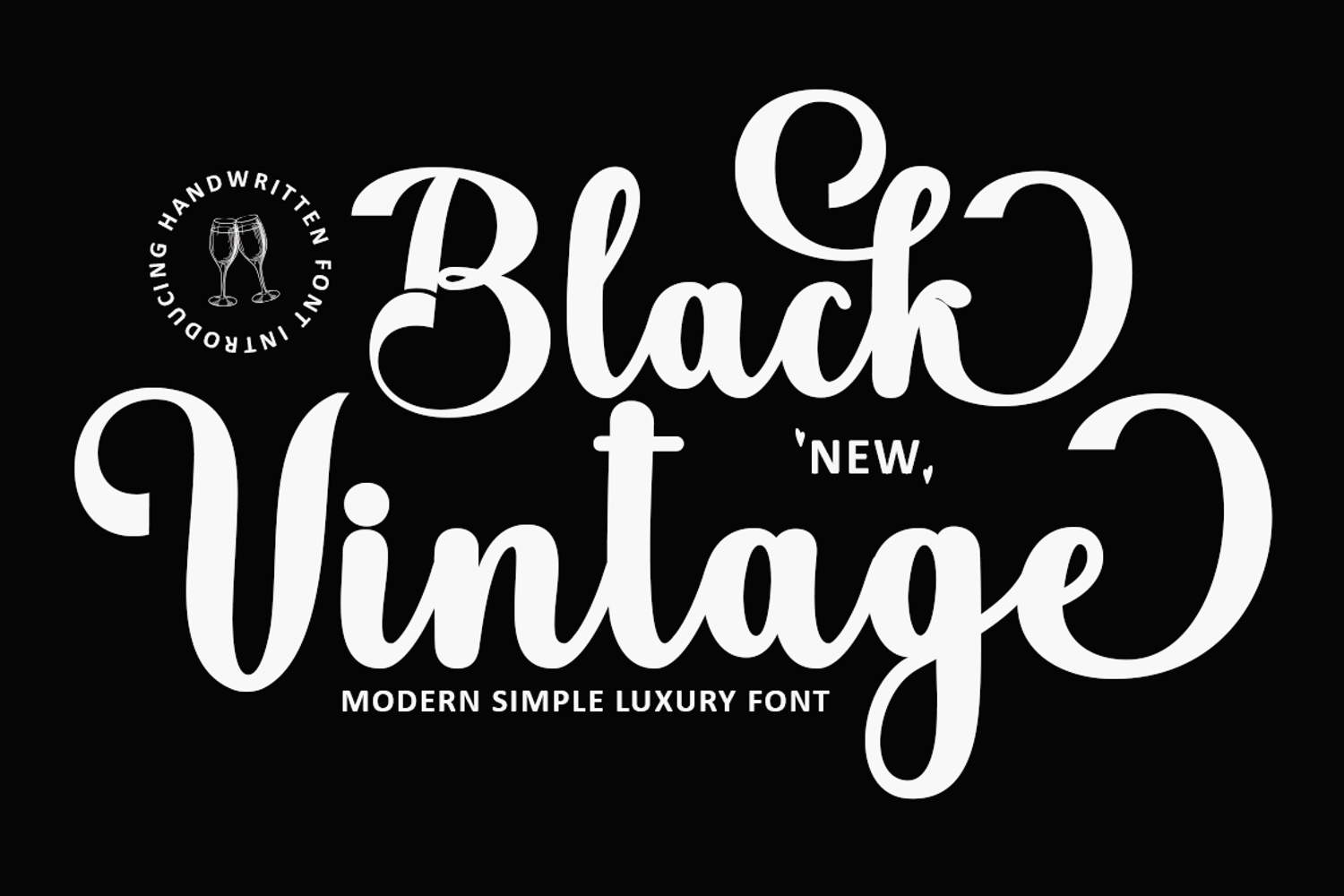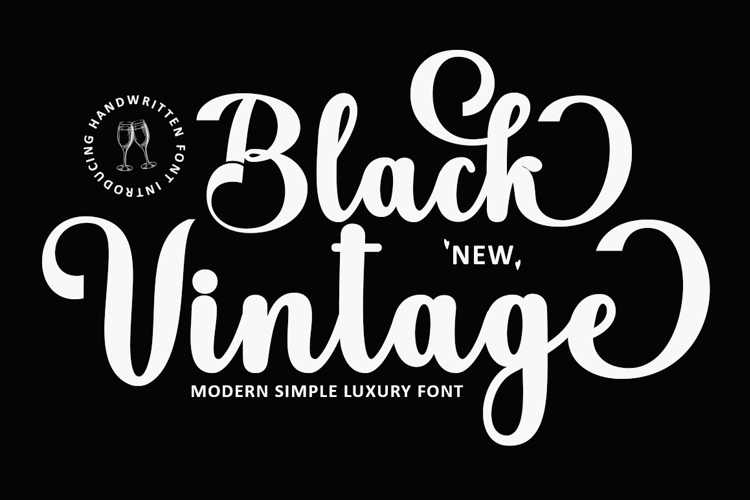
Black Vintage
Introducing the Black Vintage typeface—part of a versatile family designed with a touch of beauty and elegance.
Black Vintage stands out for its sleek, clean, feminine, sensual, glamorous, and easy-to-read style, enhanced by graceful letterjoints and gentle curves. Perfect for both modern and classic applications, this typeface is perfect for invitations, logos, labels, restaurant menus, fashion, beauty branding, stationery, novels, magazines, books, greeting/wedding cards, packaging, and all types of advertising projects.